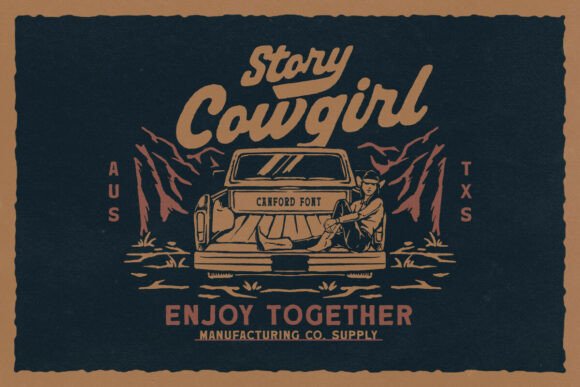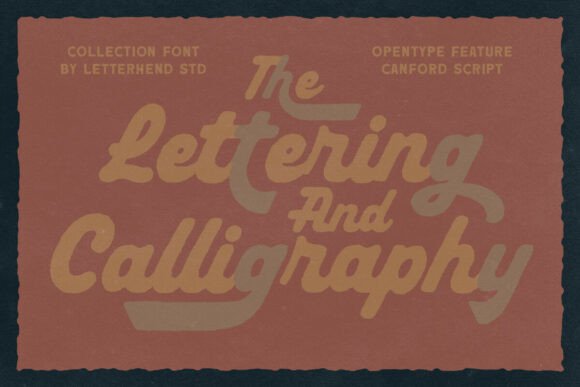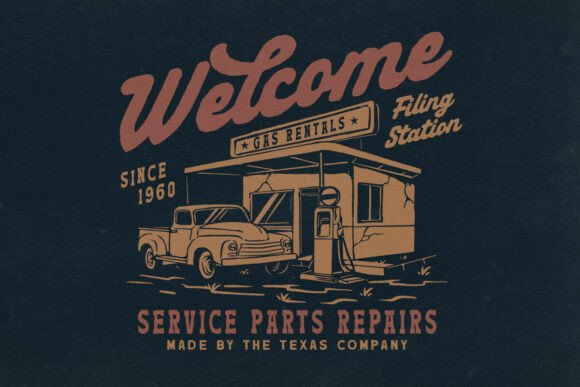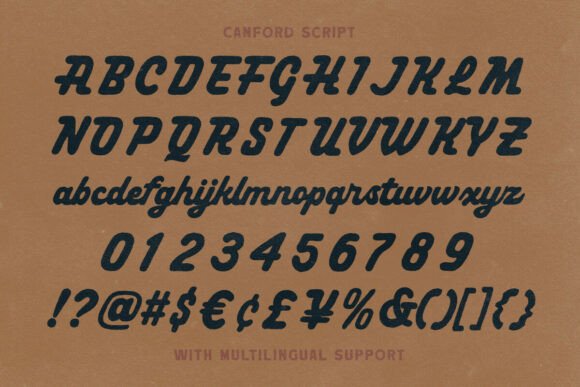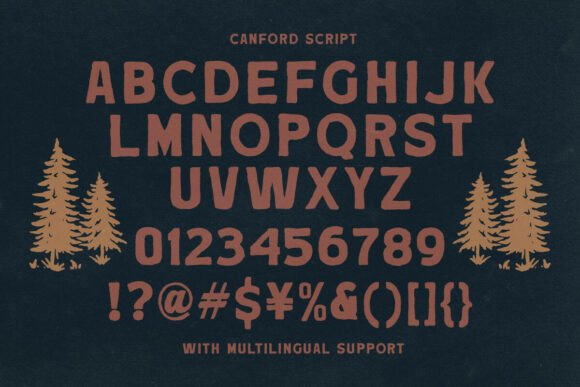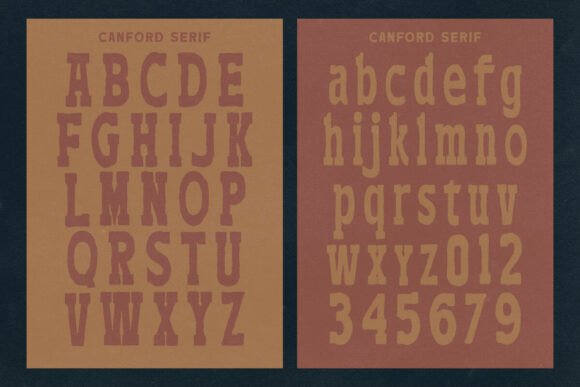
Introducing CANFORD Trio Typeface: Elevate Your Designs with Organic Charm
Are you a modern outdoors enthusiast, a vintage branding connoisseur, or a designer looking for a unique font to capture the essence of the great outdoors? Look no further than the CANFORD Trio Typeface, an expansive organic collection font pack designed to bring a rugged, authentic feel to your projects. Proudly presented by Letterhend Std, this handmade quality font pack is the perfect solution for creating robust, cohesive designs that exude a genuine, handcrafted look.
A Collection of Styles to Suit Every Need
The CANFORD Trio Typeface is not just a single font, but a comprehensive collection of styles to cater to diverse design requirements. The package includes three distinct styles:
- Sans: A clean, modern sans-serif font perfect for headlines, titles, and body text.
- Serif: A classic serif font with a rustic touch, ideal for creating a sense of tradition and heritage.
- Script: A beautiful, handwritten script font that adds a touch of elegance and sophistication to your designs.
With these three styles at your disposal, you can create a wide range of designs, from outdoor gear labels and brewery signage to coffee packaging and apparel. The versatility of the CANFORD Trio Typeface makes it an excellent addition to any designer’s toolkit.
Inspired by Nature, Crafted with Love
The CANFORD Trio Typeface is inspired by the natural world, with a design language that echoes the rustic charm of wildlife and the great outdoors. The font’s organic feel is reminiscent of handmade signs, vintage posters, and rugged outdoor gear. This unique aesthetic makes it perfect for projects that require a genuine, authentic look, such as:
- Trademarked goods and branding materials
- Apparel and outdoor gear labels
- Brewery labels and craft beer packaging
- Coffee packaging and cafe branding
- Any project seeking a handcrafted, organic presence
The CANFORD Trio Typeface includes PUA (Private Use Area) encoding, which means that all special characters and decorative elements are easily accessible without the need for additional software. This feature makes it simple to add unique touches to your designs, such as:
- Decorative borders and dividers
- Special characters and glyphs
- Customizable ligatures and alternates
With PUA encoding, you can focus on creating stunning designs without worrying about technical complexities.
Why Choose CANFORD Trio Typeface?
So, what sets the CANFORD Trio Typeface apart from other font collections? Here are just a few reasons why designers and crafters love this unique font pack:
- Handmade quality: Each font in the CANFORD Trio Typeface is crafted with love and attention to detail, giving your designs a genuine, handcrafted feel.
- Organic aesthetic: The font’s organic design language is inspired by nature and the great outdoors, making it perfect for projects that require a rustic, authentic look.
- Versatility: With three distinct styles and PUA encoding, the CANFORD Trio Typeface offers endless possibilities for creative expression.